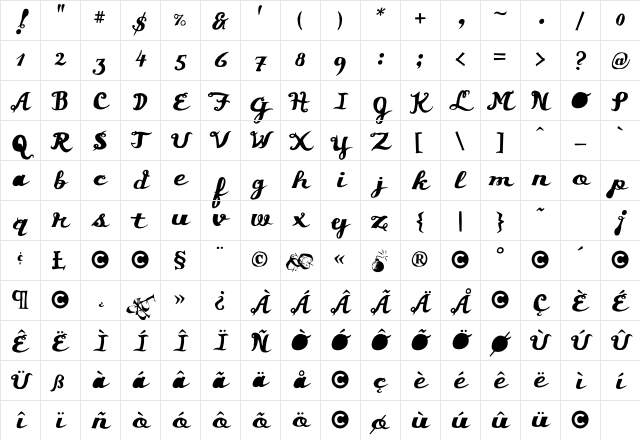
Complete Crotchless TeddyRoosevelt glyph index. Displaying only characters natively supported by Crotchless TeddyRoosevelt font.
Crotchless is a composed and adaptable typeface that performs quietly and consistently across a wide range of design contexts.